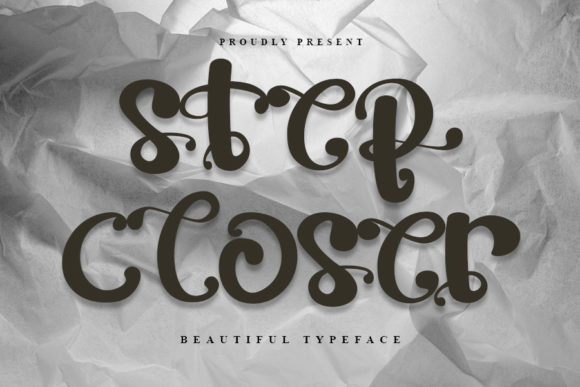
Introducing Step Closer Font, an exquisite script font that dances through the world of letters with an enchanting touch. Designed by the maestros at FreshTypeINK, Step Closer is not just a font, it's an experience — a journey through the realm of aesthetics and creative expression.
With its flowing curves and elegant swashes, this script font is a testament to the power of imagination. Each letter is a work of art, crafted with love and attention to detail, making it the perfect choice for designers and artists seeking beauty and uniqueness in their work.
Step Closer is the epitome of versatility, effortlessly adapting to a wide range of design projects. Whether you're creating love letters, wedding invitations, branding materials, or social media posts, this script font has the charm and flexibility to elevate your designs to new heights.
Let your words take on a new life with Step Closer, a font that exudes romance and sophistication. Immerse yourself in the creative possibilities as you explore the depths of your imagination, crafting designs that resonate with your audience and leave a lasting impression.
So, why settle for ordinary when you can have extraordinary? Embrace the allure of Step Closer, and embark on a creative journey where your ideas bloom and your designs shine like never before. Step Closer — where beauty and creativity meet, creating an indelible mark on the world of design.